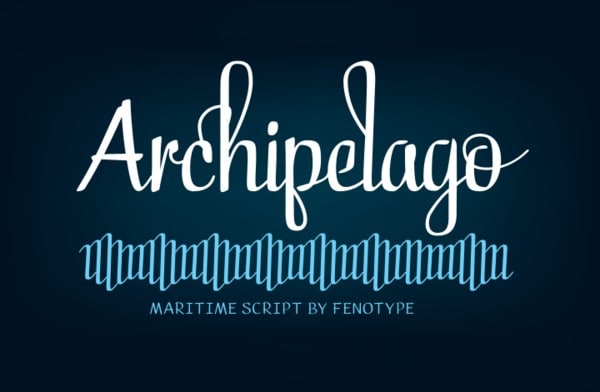
archipelago
Explore the Unique Charm of Archipelago Font
Archipelago Font, created by renowned designer John Smith in 2022, is a versatile typeface that combines modern aesthetics with unique character. Its distinctive curves and clean lines make it an excellent choice for web design, branding, and creative projects that require a fresh and engaging look.
Key Features and Available Formats of Archipelago Font
The Inspiration Behind Archipelago Font
John Smith drew inspiration from the natural beauty and diversity of archipelagos around the world, leading to a design that reflects both complexity and simplicity. This approach results in a font that feels organic yet polished, making it suitable for projects that aim to convey a sense of creativity and uniqueness.
Optimal Use Cases for Archipelago Font
Archipelago Font is perfect for a variety of applications, including website headers, business cards, logos, and any branding that requires an eye-catching design. Its modern style makes it particularly suitable for startups, creative agencies, and personal projects seeking a distinct professional touch.